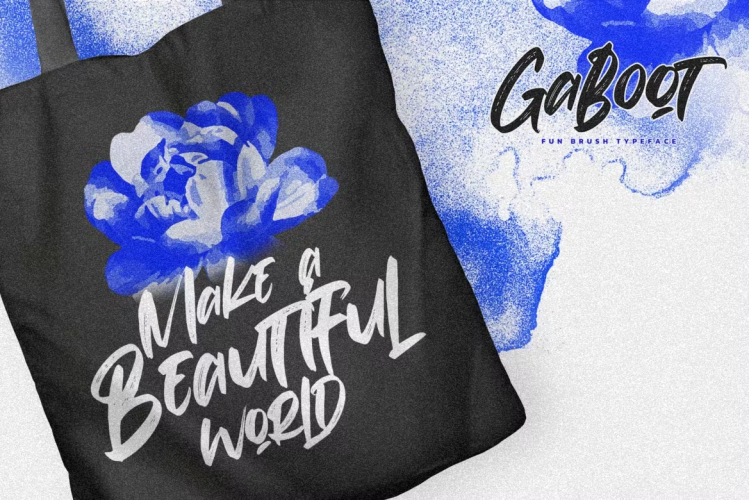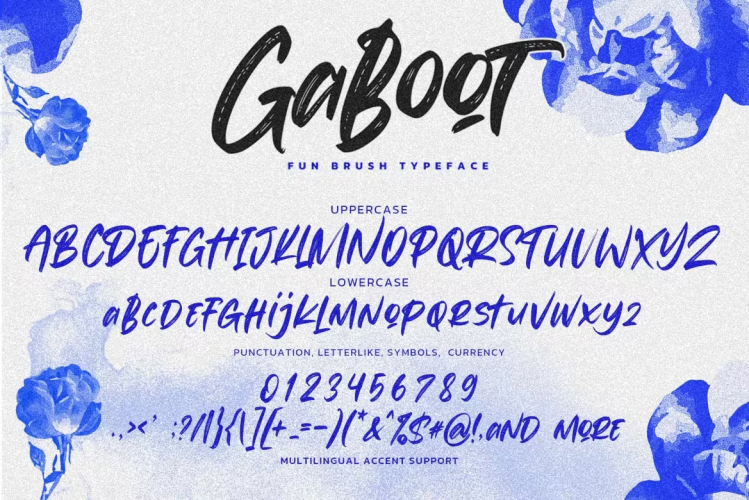
Gaboot Authentic Brush Font
Hello Everyone, introduce our new product Gaboot is a Freehand Written Font with a Brush Style and classy style, this font is great for your creative projects such as wa…
Hello Everyone, introduce our new product Gaboot is a Freehand Written Font with a Brush Style and classy style, this font is great for your creative projects such as watermark on photography, and perfect for logos & branding, photography, invitation, watermark, advertisements, product designs, stationery, wedding designs, label, product packaging, special events or anything that need Slash Revolver taste. That is why Gaboot has an authentic and strong characteristics more natural look. You can activate Ligature OpenType panel and alternate glyphs.
Where Gaboot Authentic Brush Font works best
A short phrase in Gaboot Authentic Brush Font carries warmth that a typeset sans cannot fake; keep the rest of the card plain.
Chalkboard-style headings in Gaboot Authentic Brush Font make a menu feel hand-made. Keep the dish descriptions in a simple face so prices stay readable.
One line of Gaboot Authentic Brush Font over a photo is enough; the script carries the tone and the caption does the work.
What kind of work does Gaboot Authentic Brush Font suit?
It sits in the Script And Handwritten group and reads as branding, brush, creative, handwritten. That makes it a candidate wherever those qualities help: headings, packaging, social graphics and brand work. Set it at the size you plan to use before deciding.